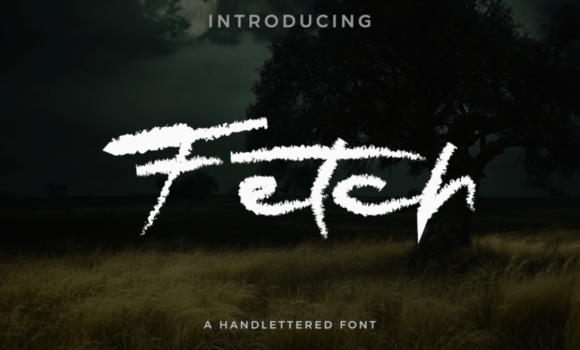
Fetch Font – Free Download Introduction to Fetch Font Introducing Fetch – an extraordinary script typeface that boasts a unique handwritten style. 📸 Preview Gallery 6 images 📌 Product Name Fetch Font 👤 Author Pixova Creative 📂 Category Explore ⬇️